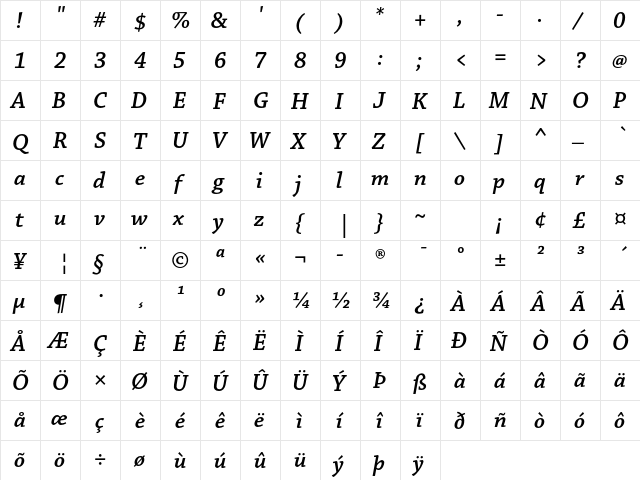
Chaparral Pro Semibold Italic
| Designer | Carol Twombly |
Design Context for Chaparral Pro Typeface
Chaparral Pro offers clean, dependable letterforms without strong stylistic allegiance, making it a practical choice for designers who need flexibility. The dynamic lean of this cut emphasises speed and emphasis in any layout. The heavy weight commands attention and anchors typographic hierarchies.